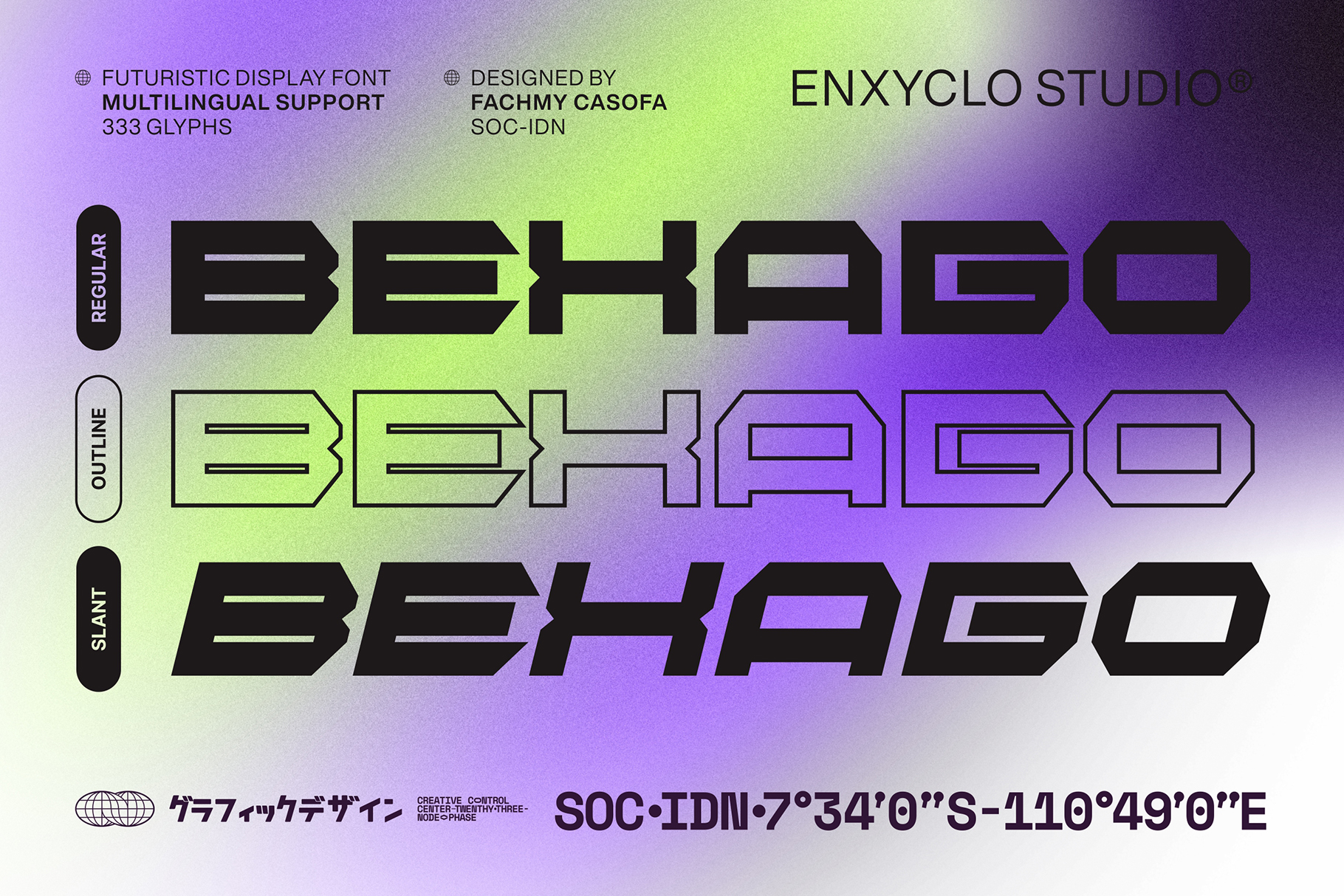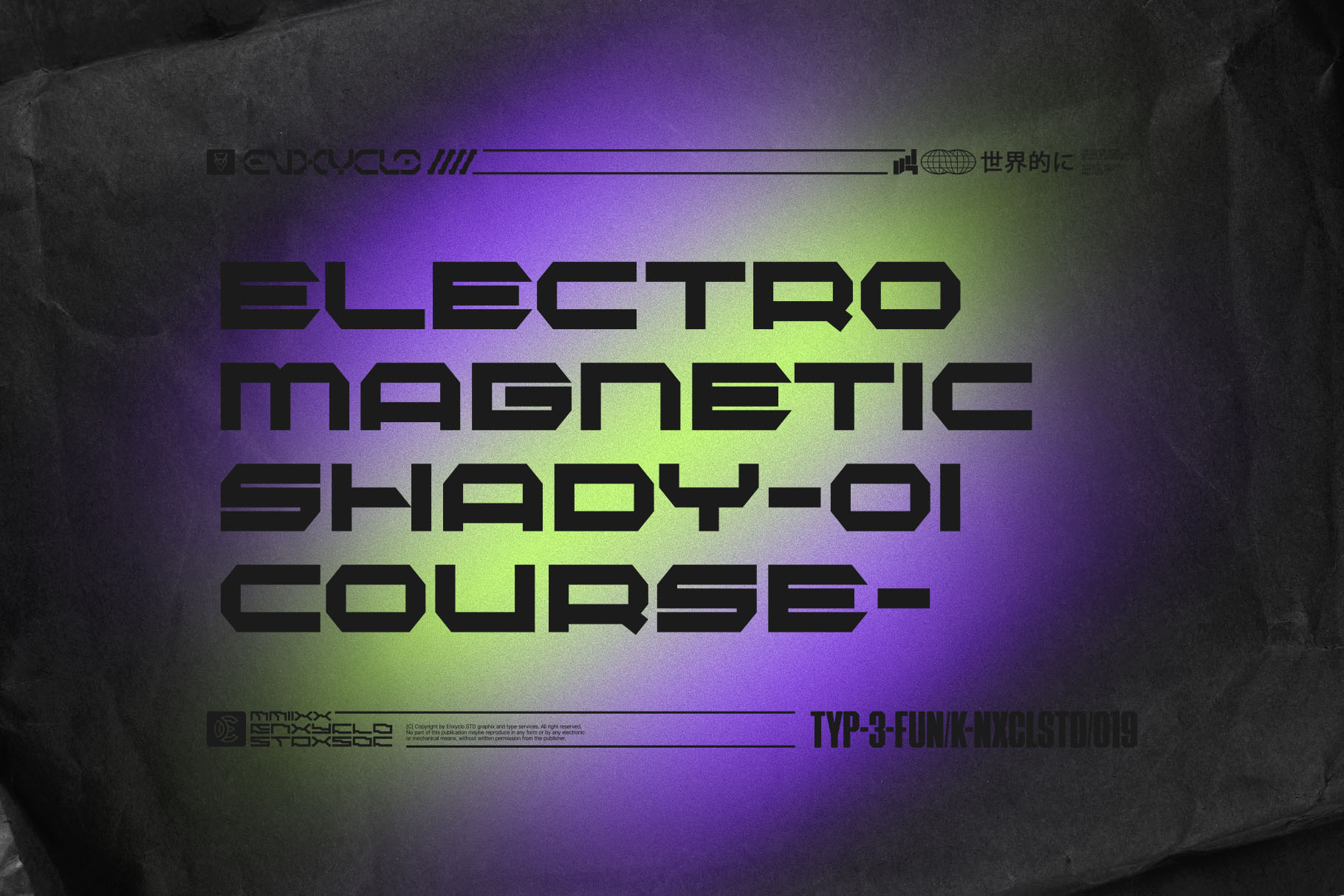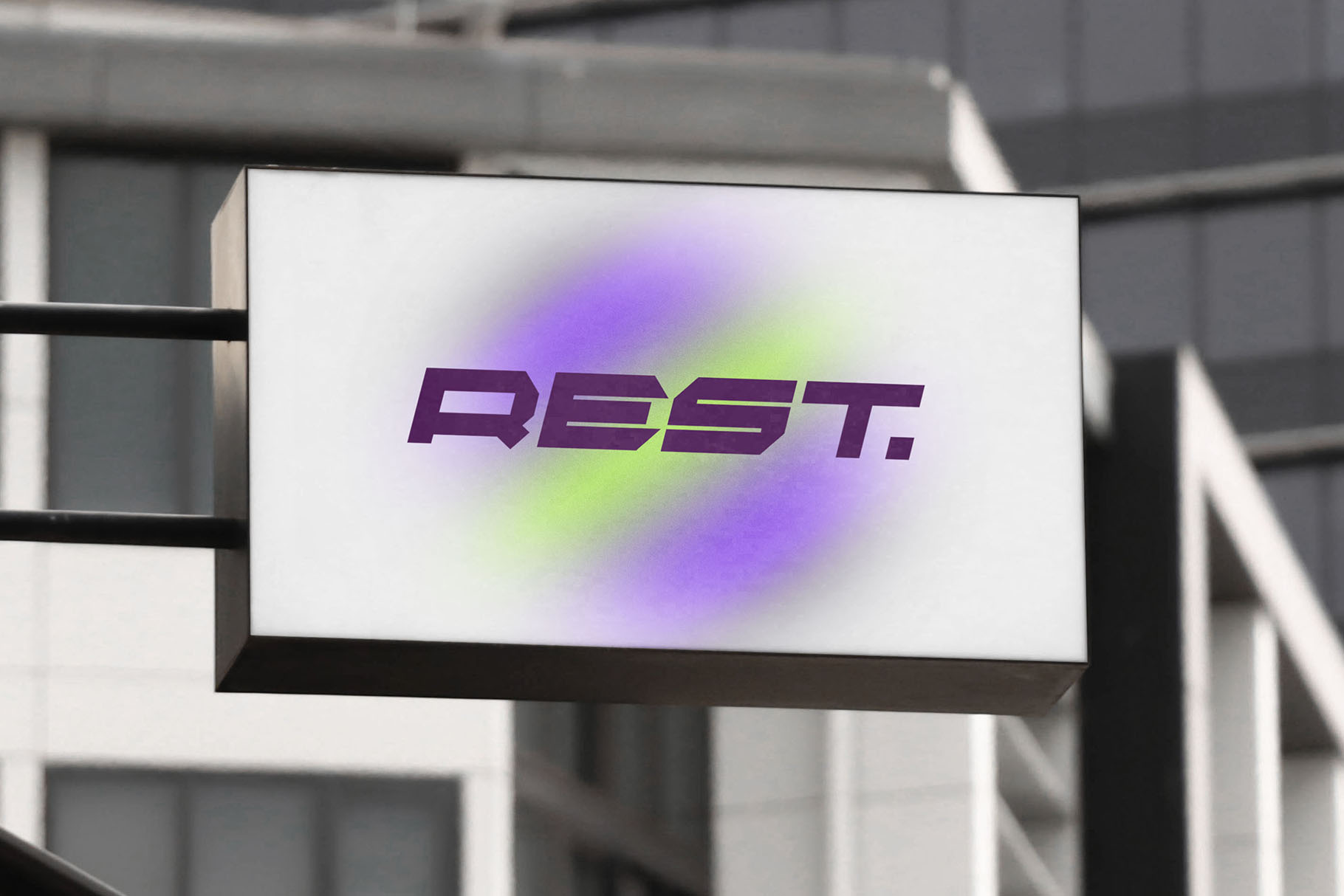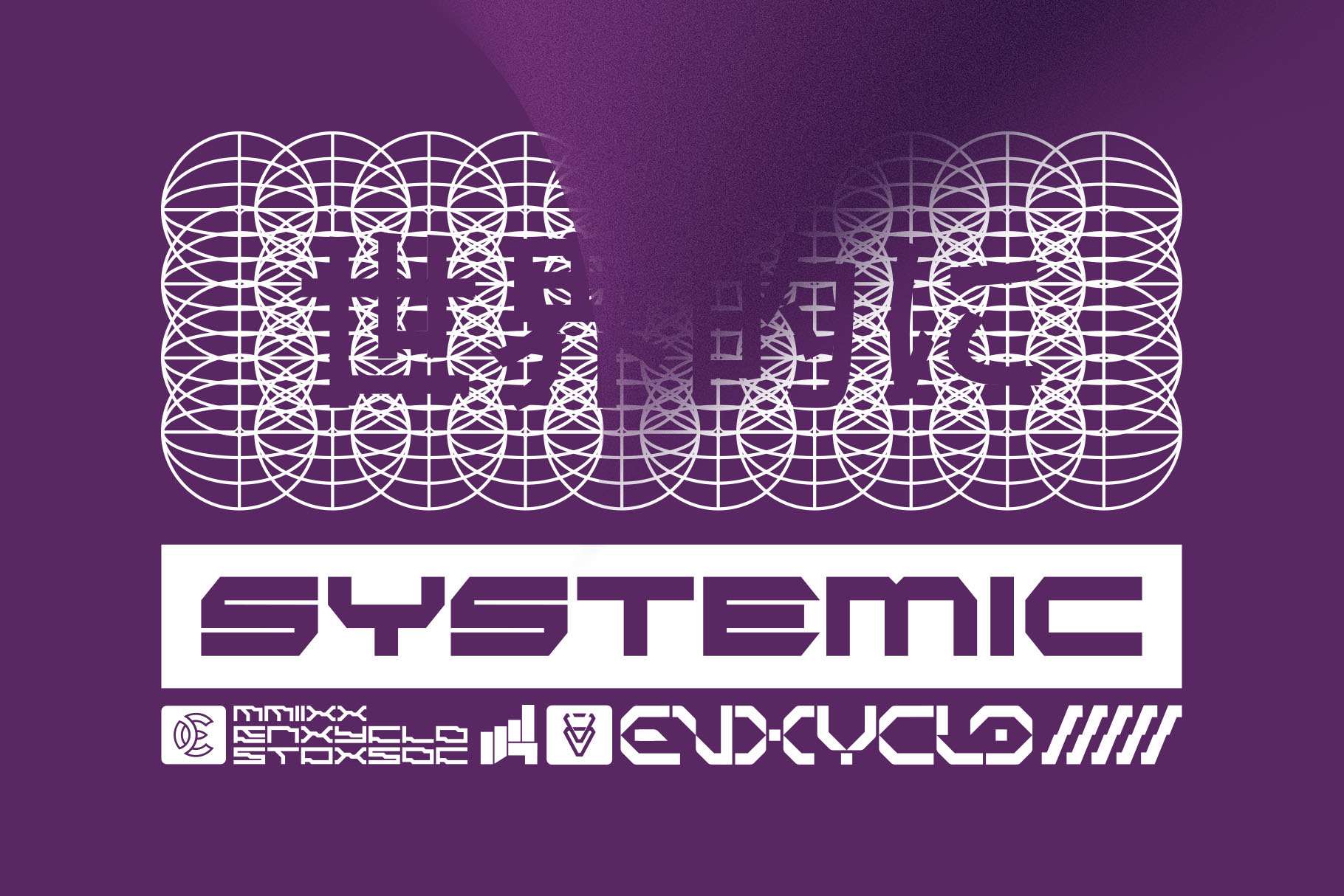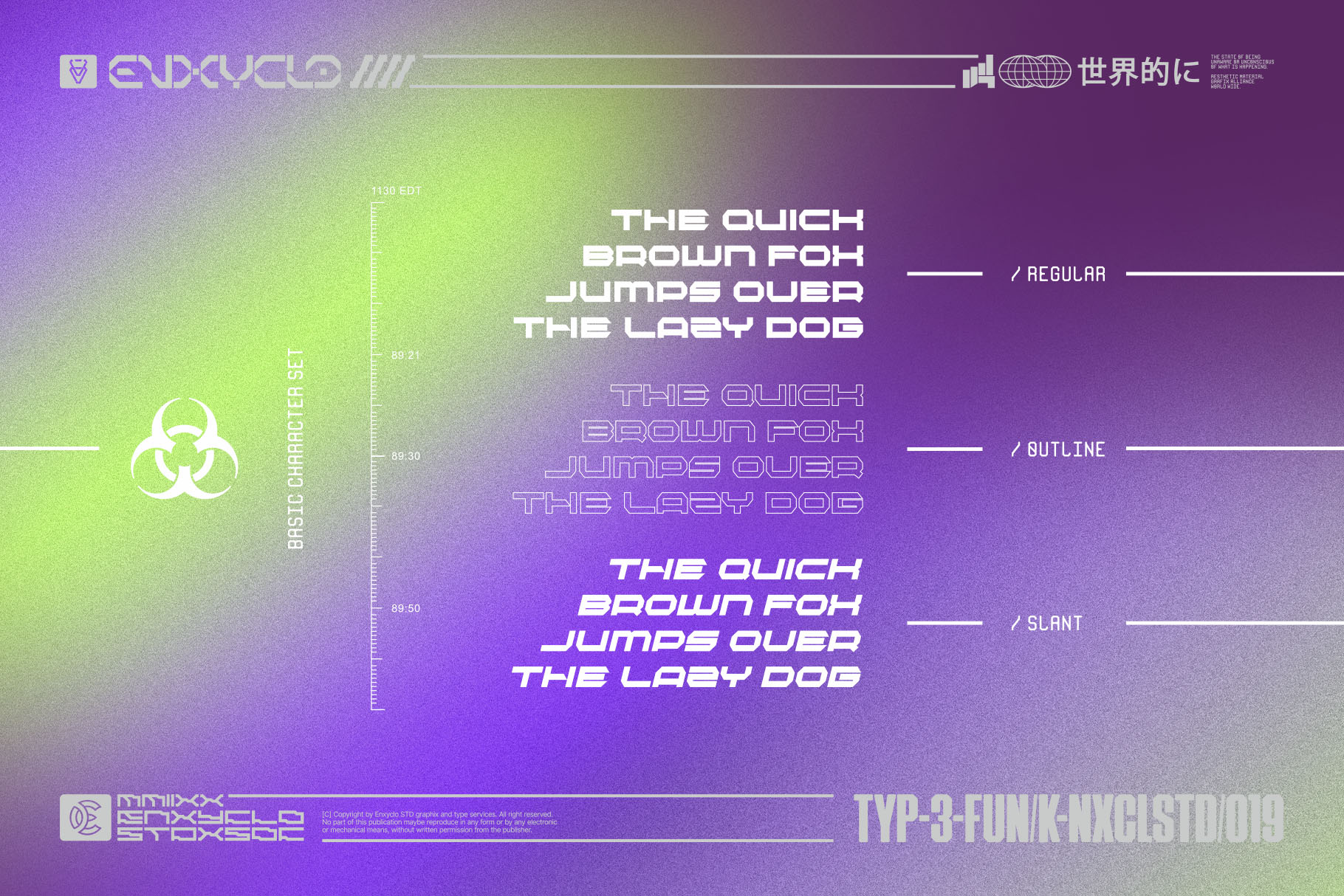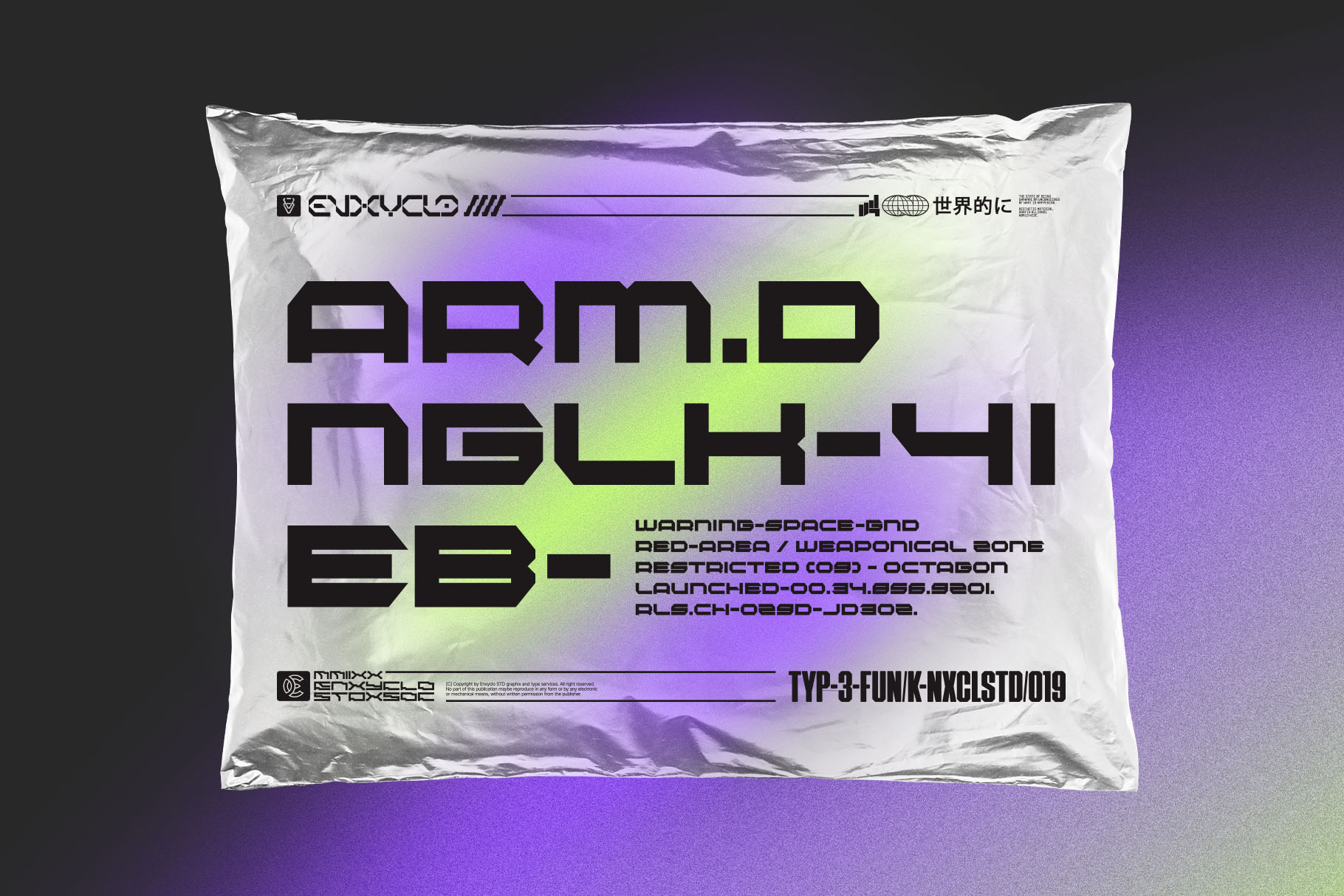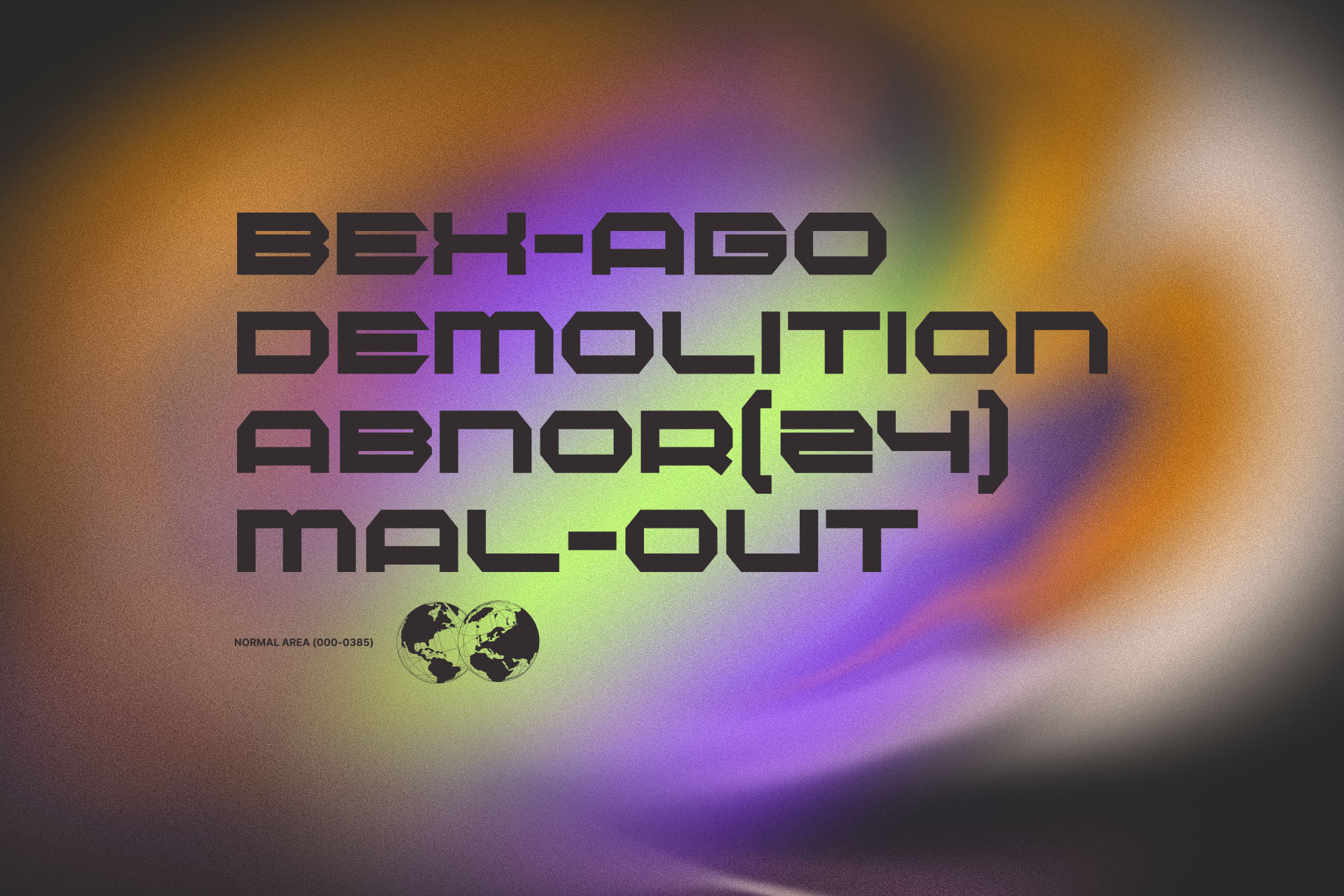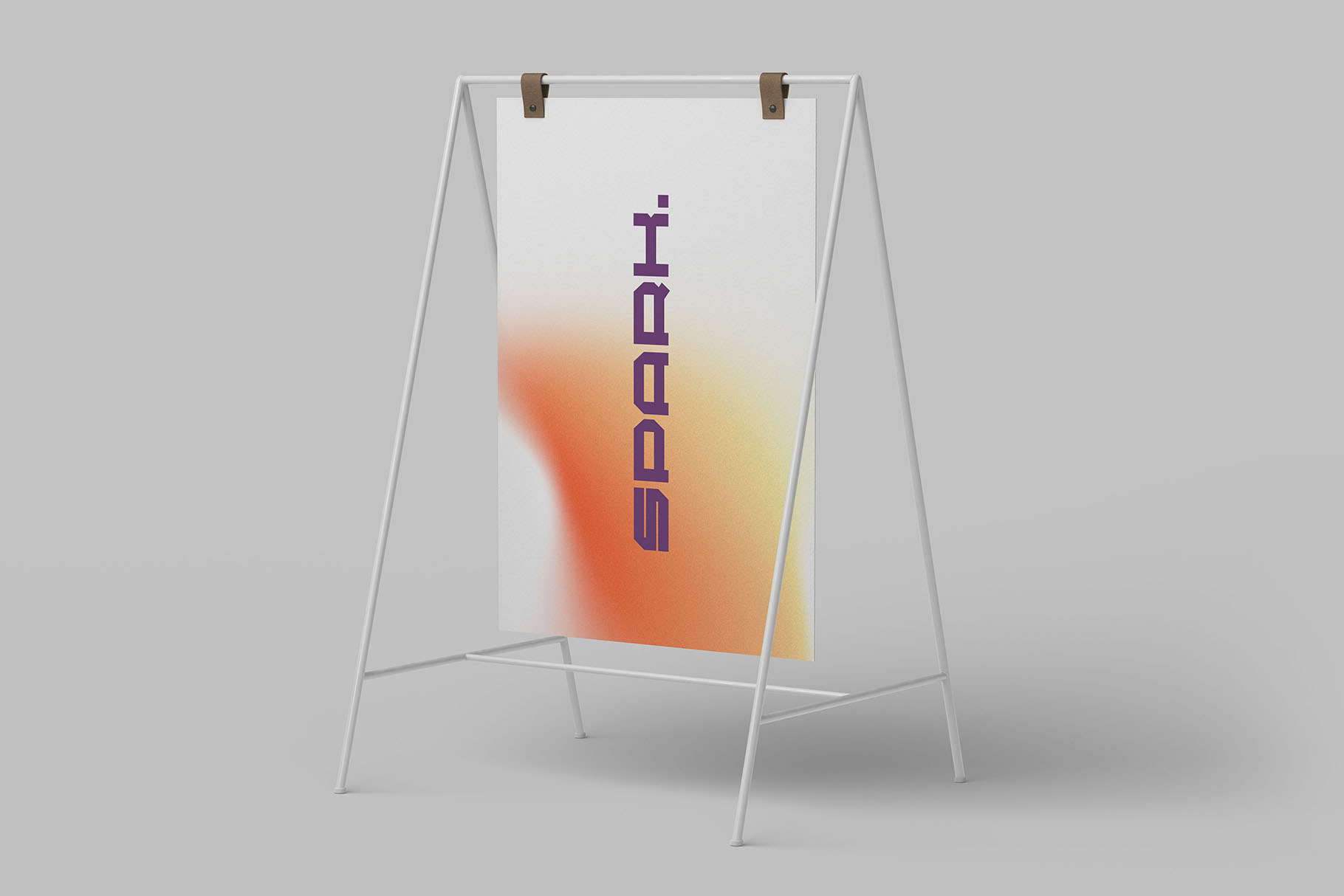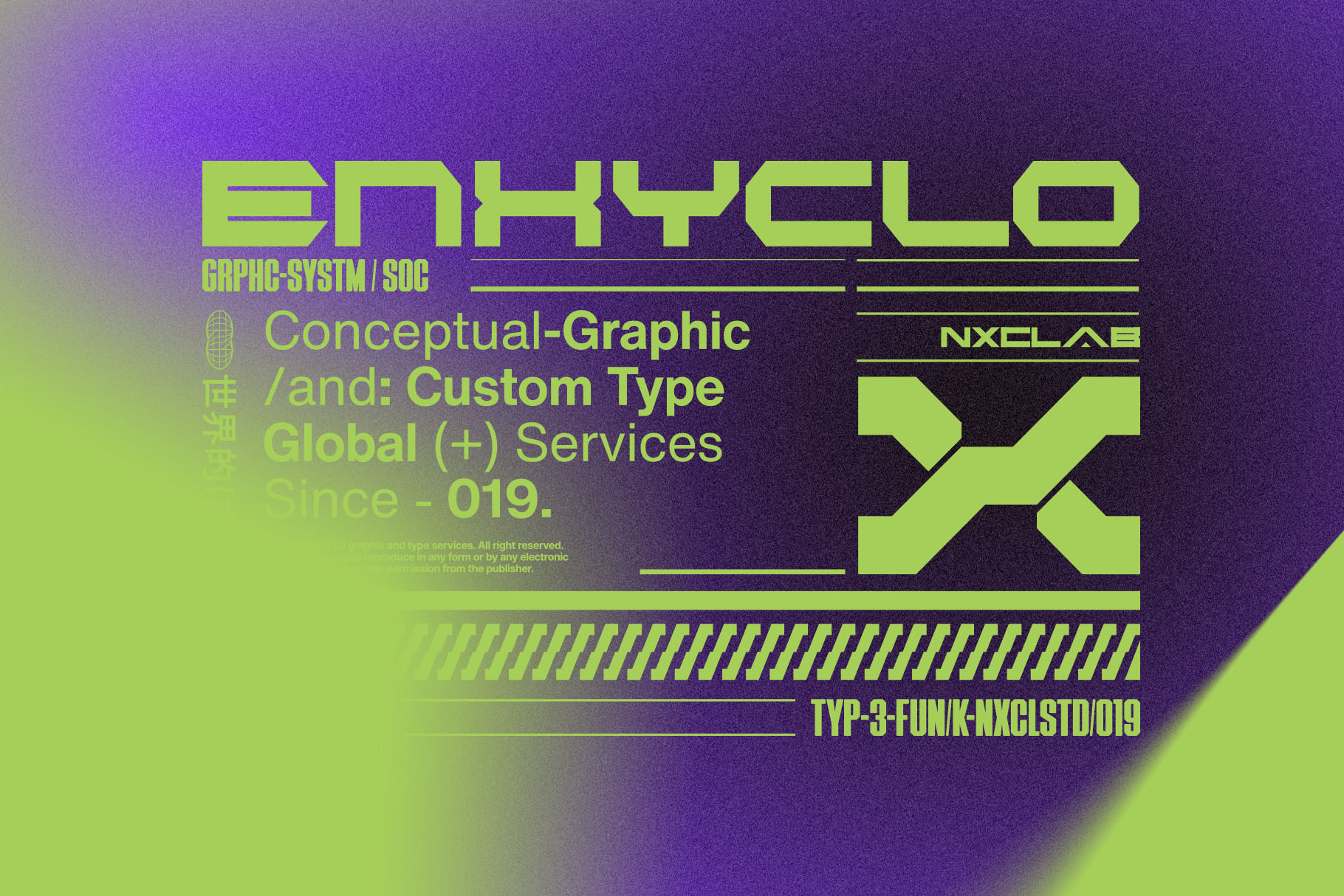
Bexago – Futuristic Techno Cyberpunk Font
BEXAGO is futuristic display font. The design of typeface will make your project more powerful and inspiring. It is perfect for headline, billboard, magazines, website, titles, poster, branding, thumbnail, t-shirt design, street wear design, and creative logos, or any project that needs futuristic touch. With this beautiful futuristic display font, absolutely you can make your project stand out from the rest. See the previews above to get some inspiration on how to use them.
3 Styles: Regular, Outline & Slant
Contains 333 Glyphs for Each Style (Total: 999 Glyphs)
Uppercase, Numeral, Punctuation & Symbol
- Multilingual Support